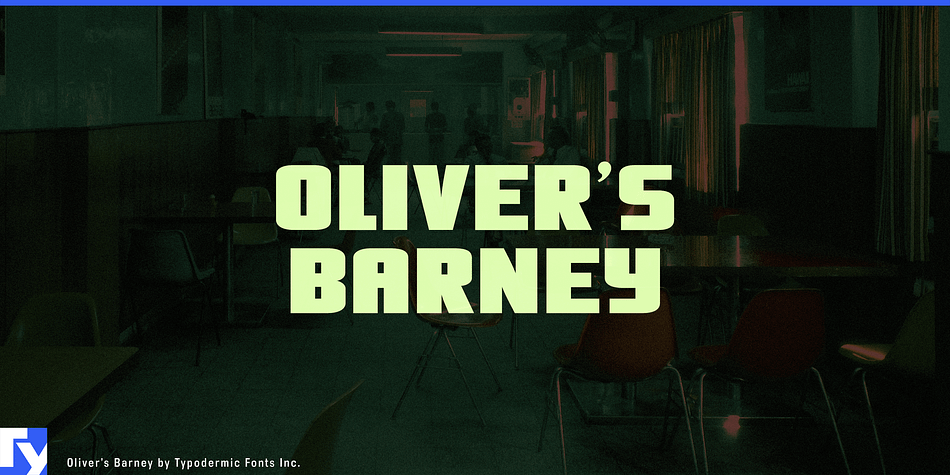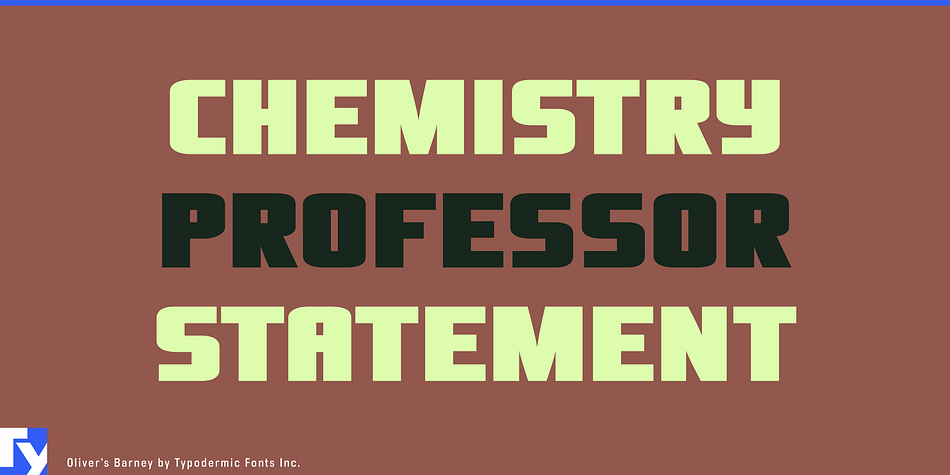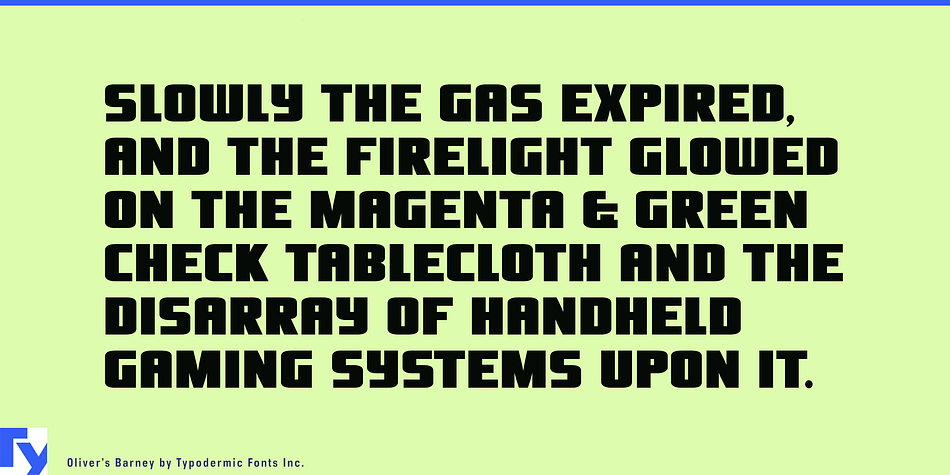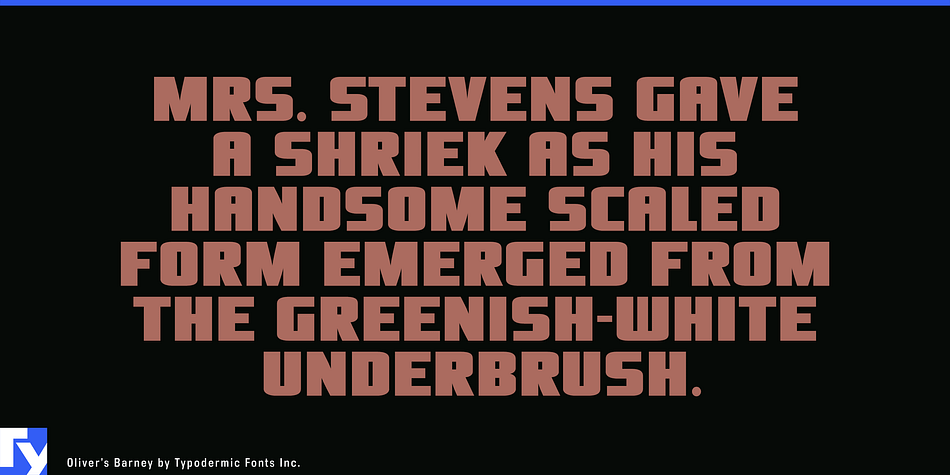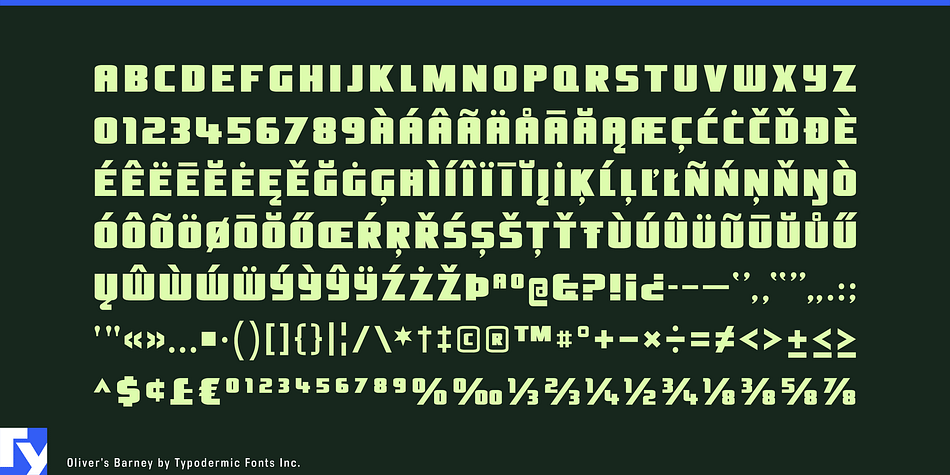
Oliver's Barney is a display sans font published by Typodermic Fonts Inc.
Oliver’s Barney is a gaspipe signage font of old lang syne.
| Foundry | Typodermic Fonts Inc. |
| Style | Display Sans |